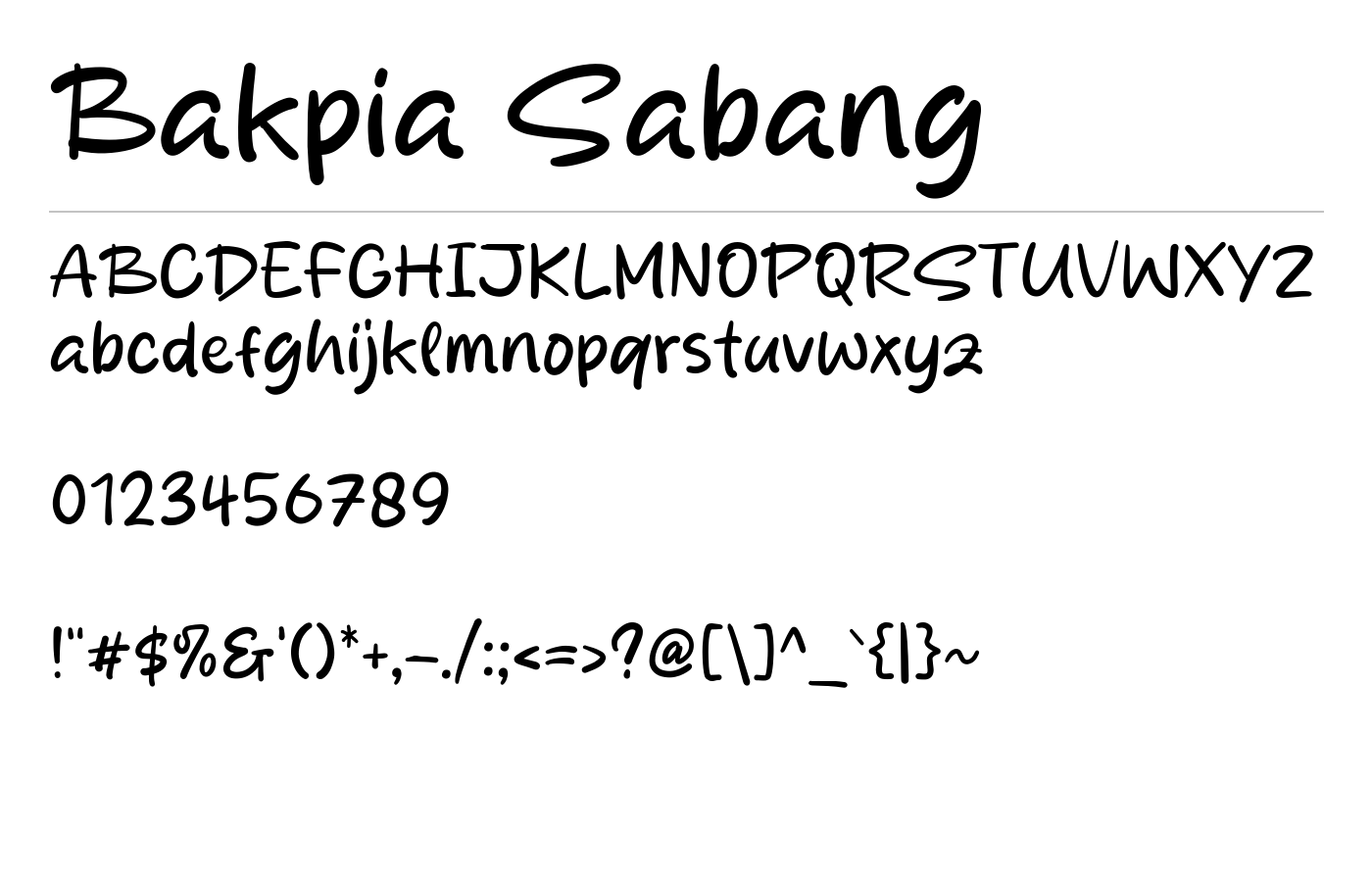
Bakpia Sabang is a lively and informal handwritten sans serif font that combines a playful charm with clear readability. Its moderately thick strokes and casual, slightly rounded letterforms give it a friendly, approachable feel, making it ideal for personal branding, creative projects, and casual communication. This font works well in logos, social media graphics, and headlines where a warm, inviting personality is desired.